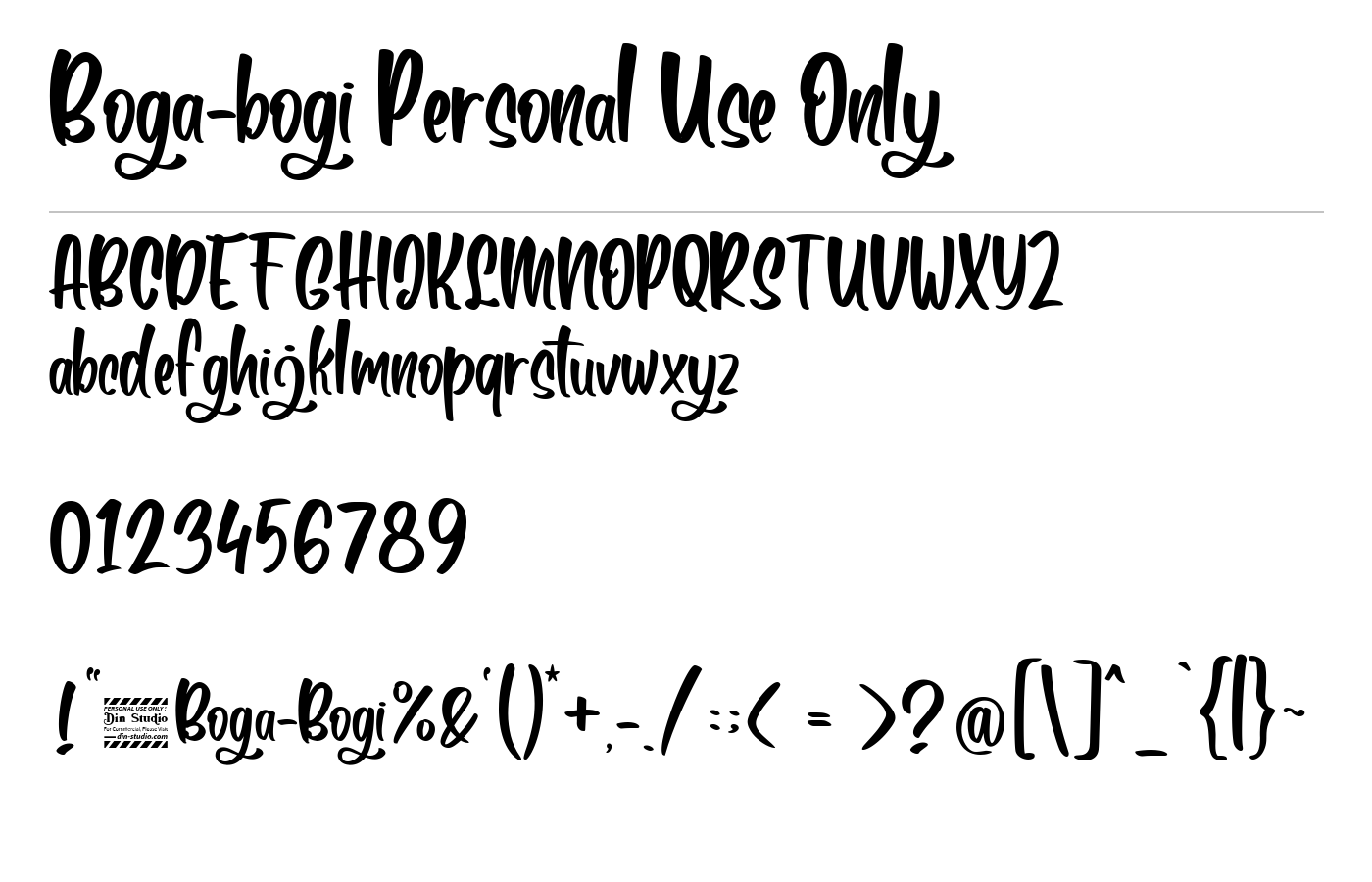
Boga-bogi is a playful, casual script font with a friendly hand-drawn feel, featuring moderately high contrast and lively, flowing strokes. Its tall x-height, smooth curves, and unique letter details make it perfect for personal projects, branding, and creative designs that want to convey warmth and approachability. This font works best in headlines, logos, and invitations where a charming, informal style is desired.
Boga-bogi Personal Use Only Font
About Boga-bogi Personal Use Only Font
| Font family | Boga-bogi Personal Use Only Font |